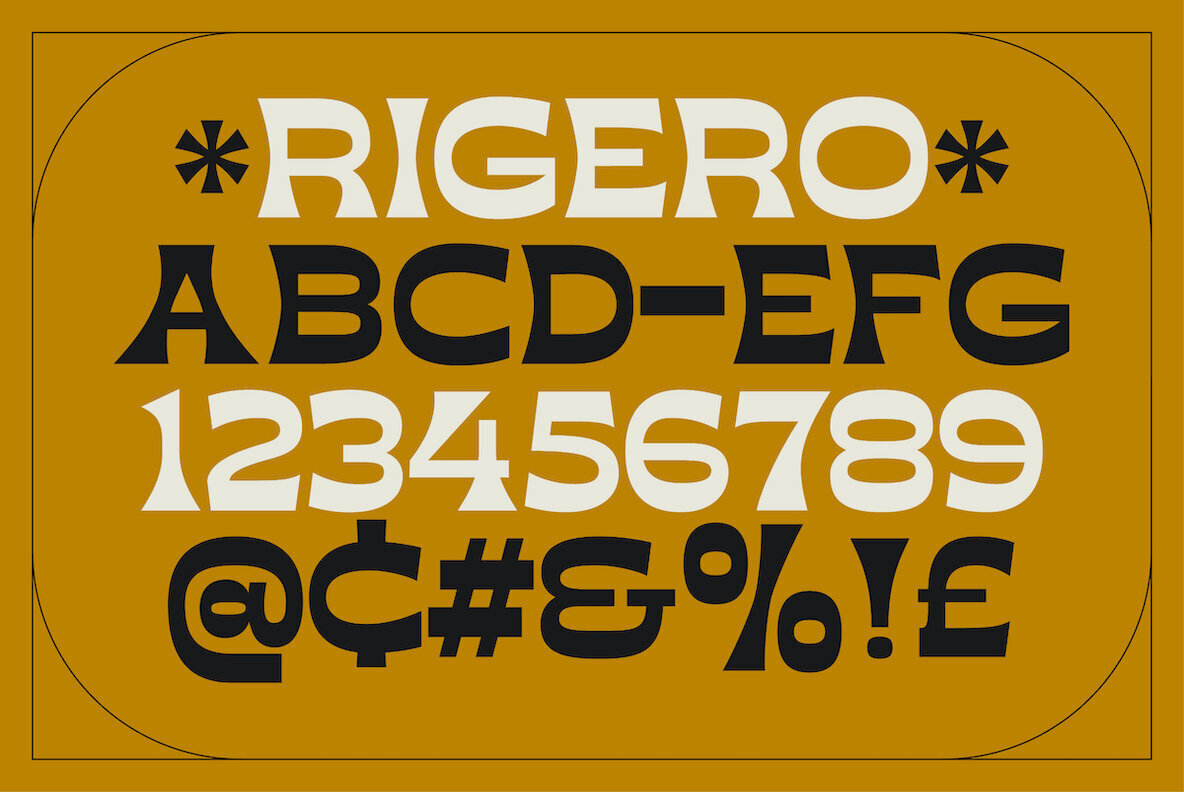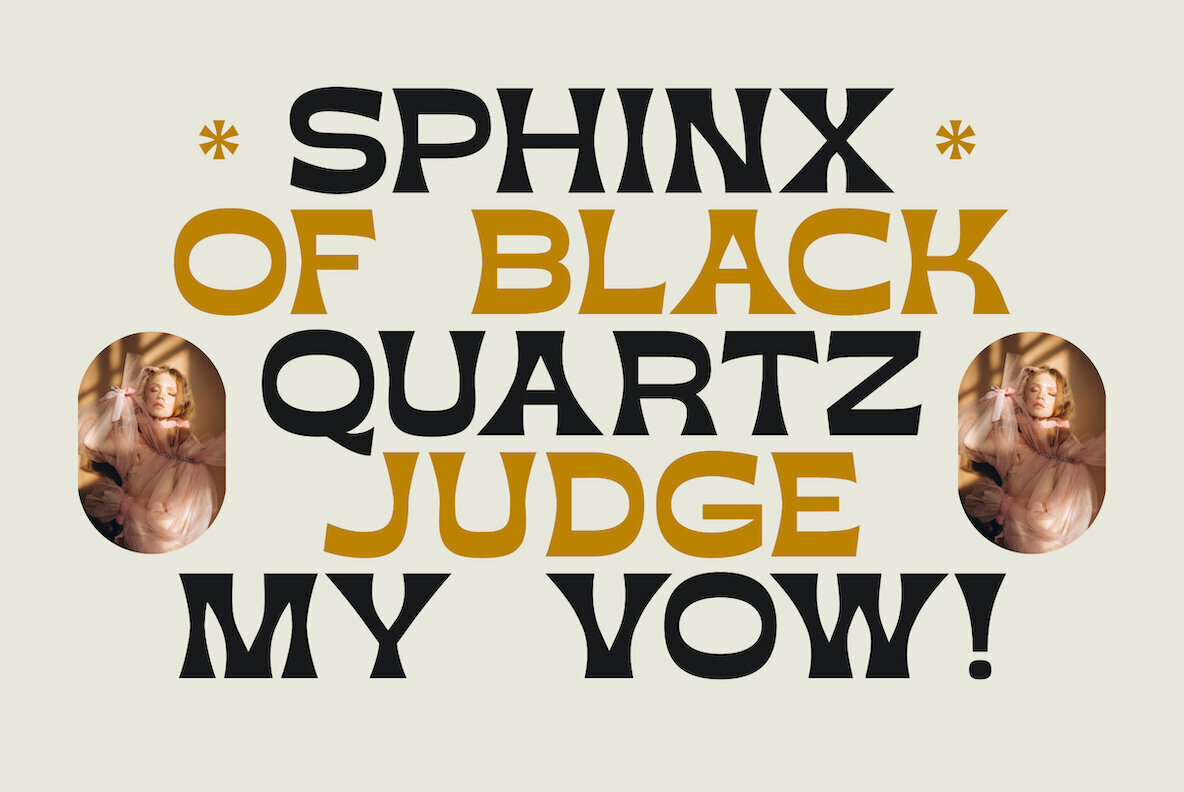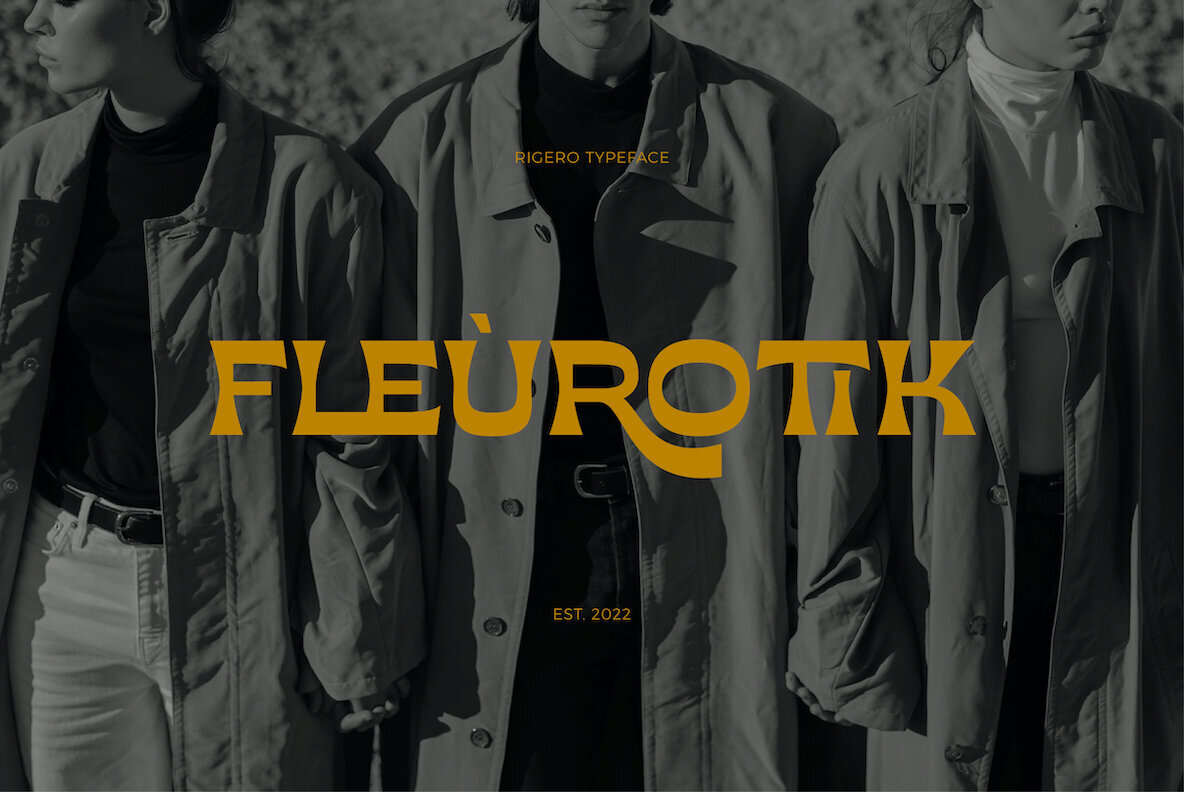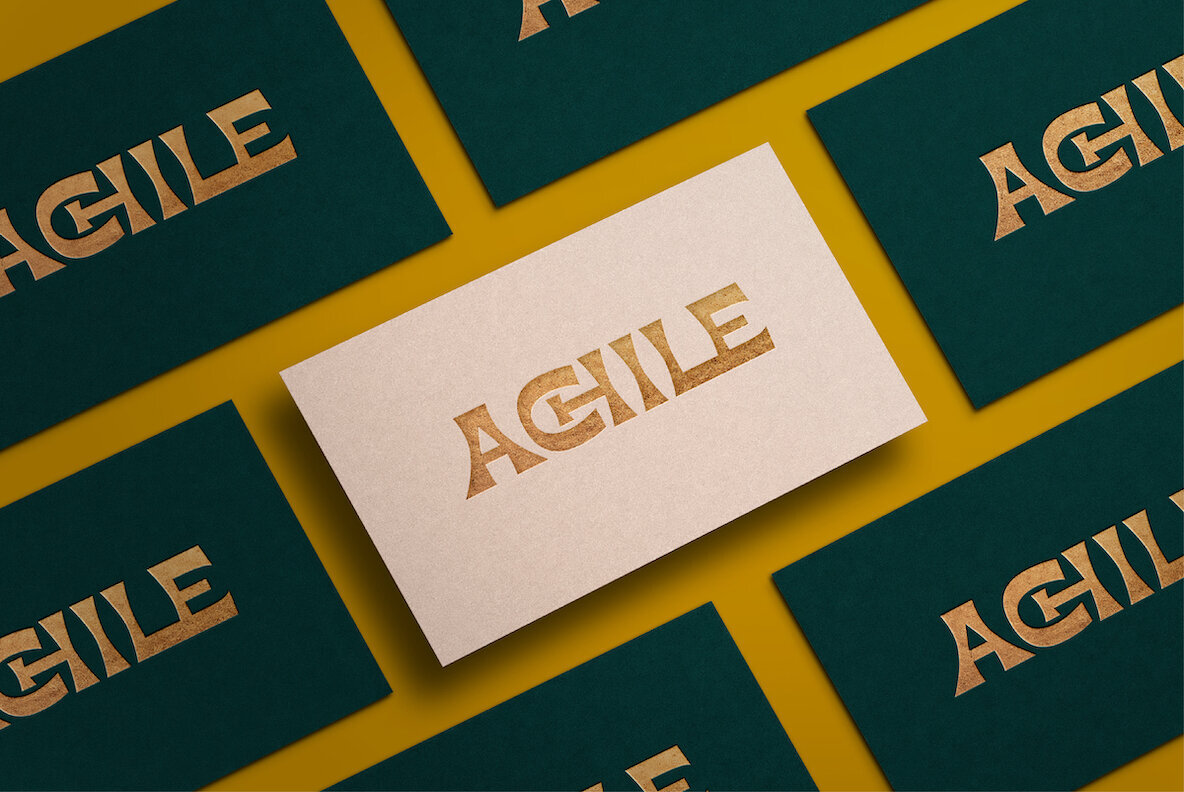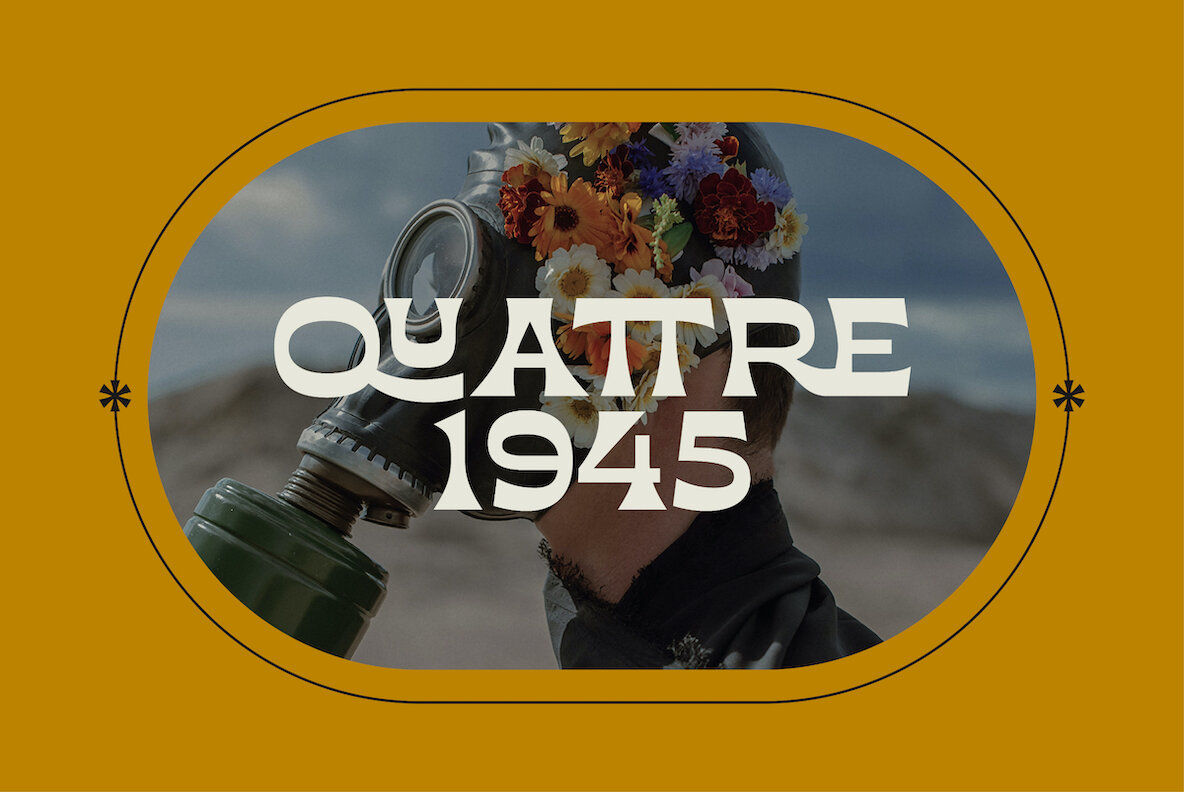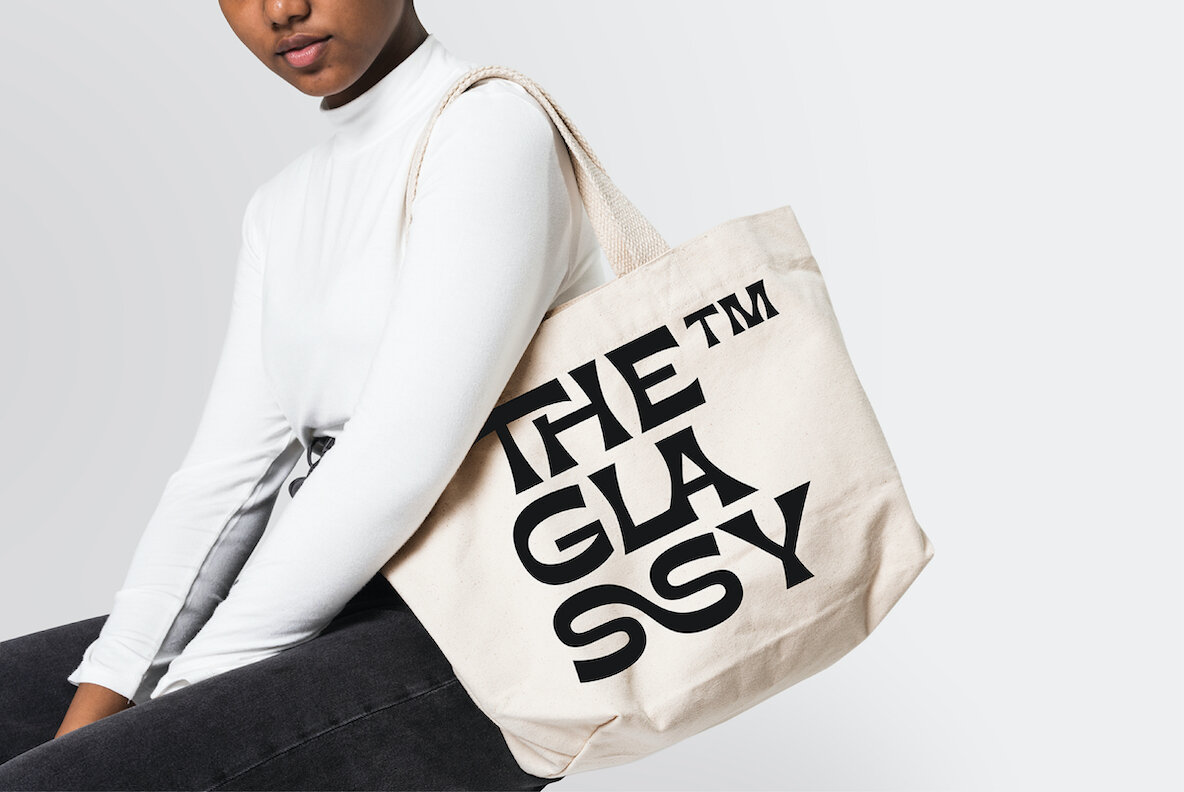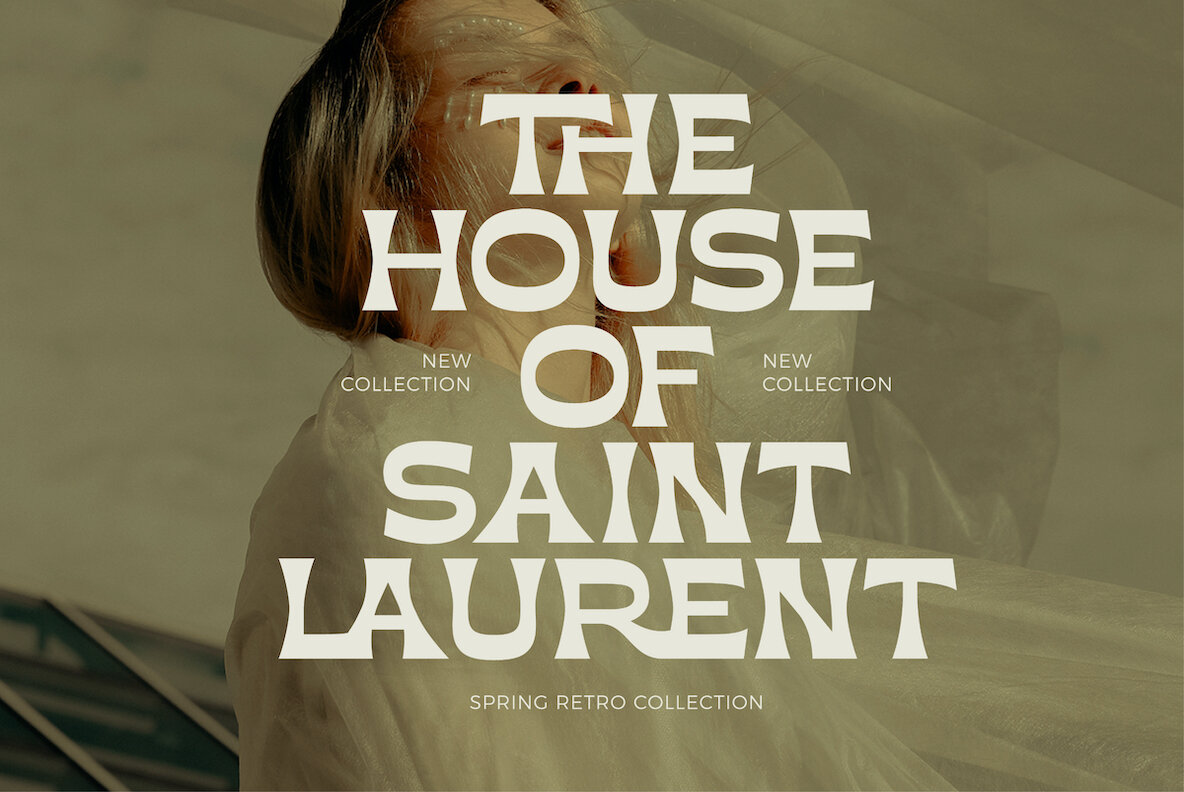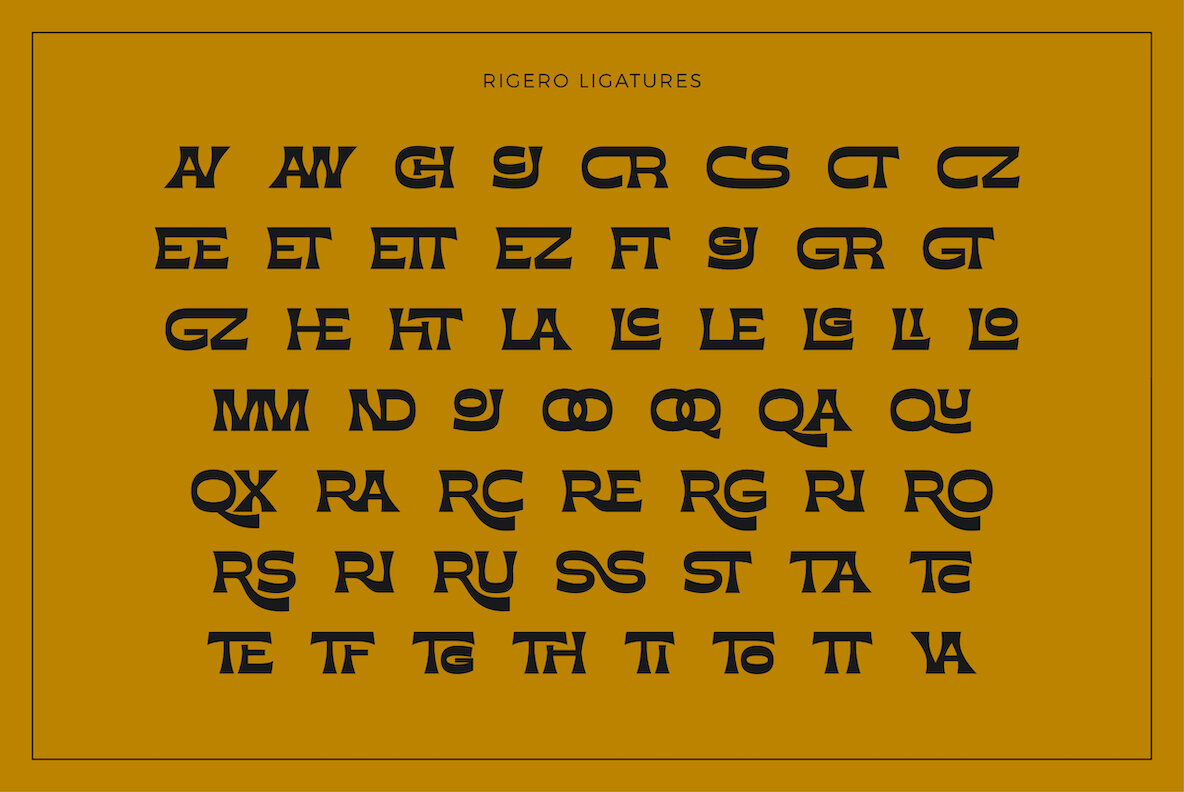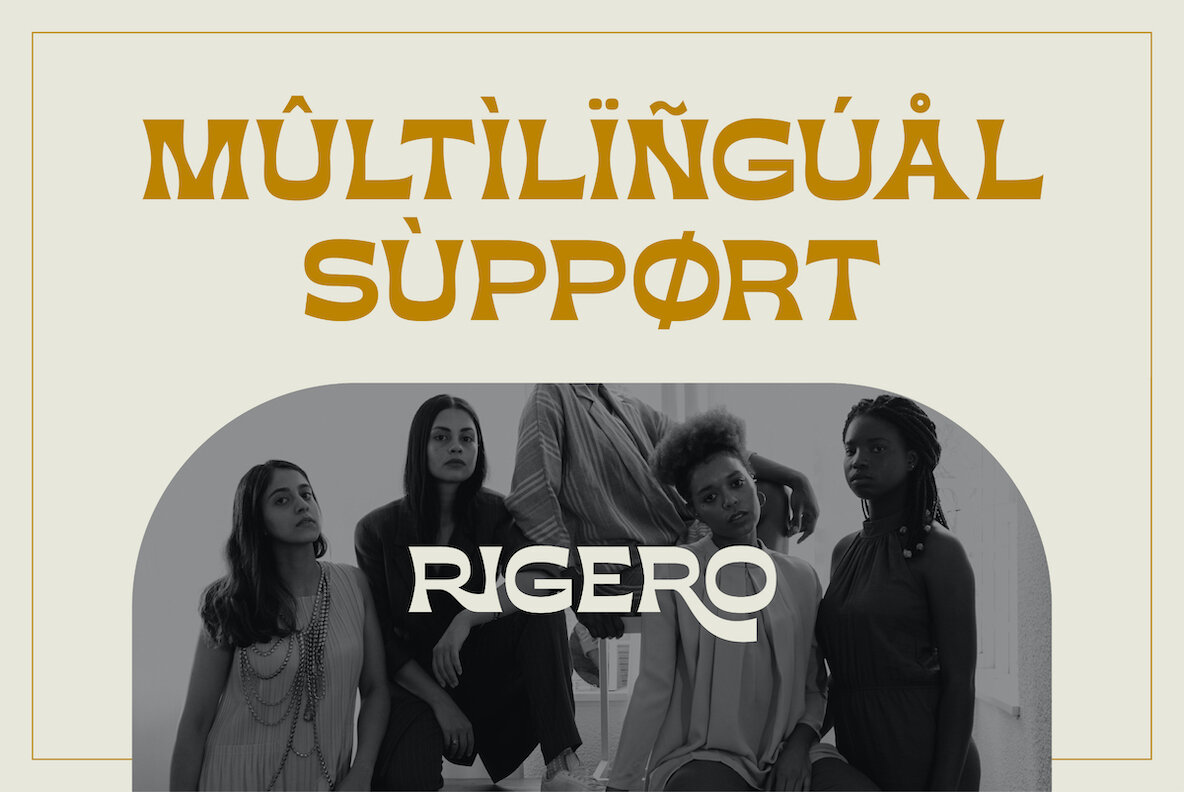
Rigero Font
Rigero Regular
Rigero is a retro inspired reverse contrast display font that's perfect for large format use. Whether you're creating branding materials, web headers or billboards, Rigero is up for the task.
Rigero features a number of handy ligatures to help your work flow naturally.